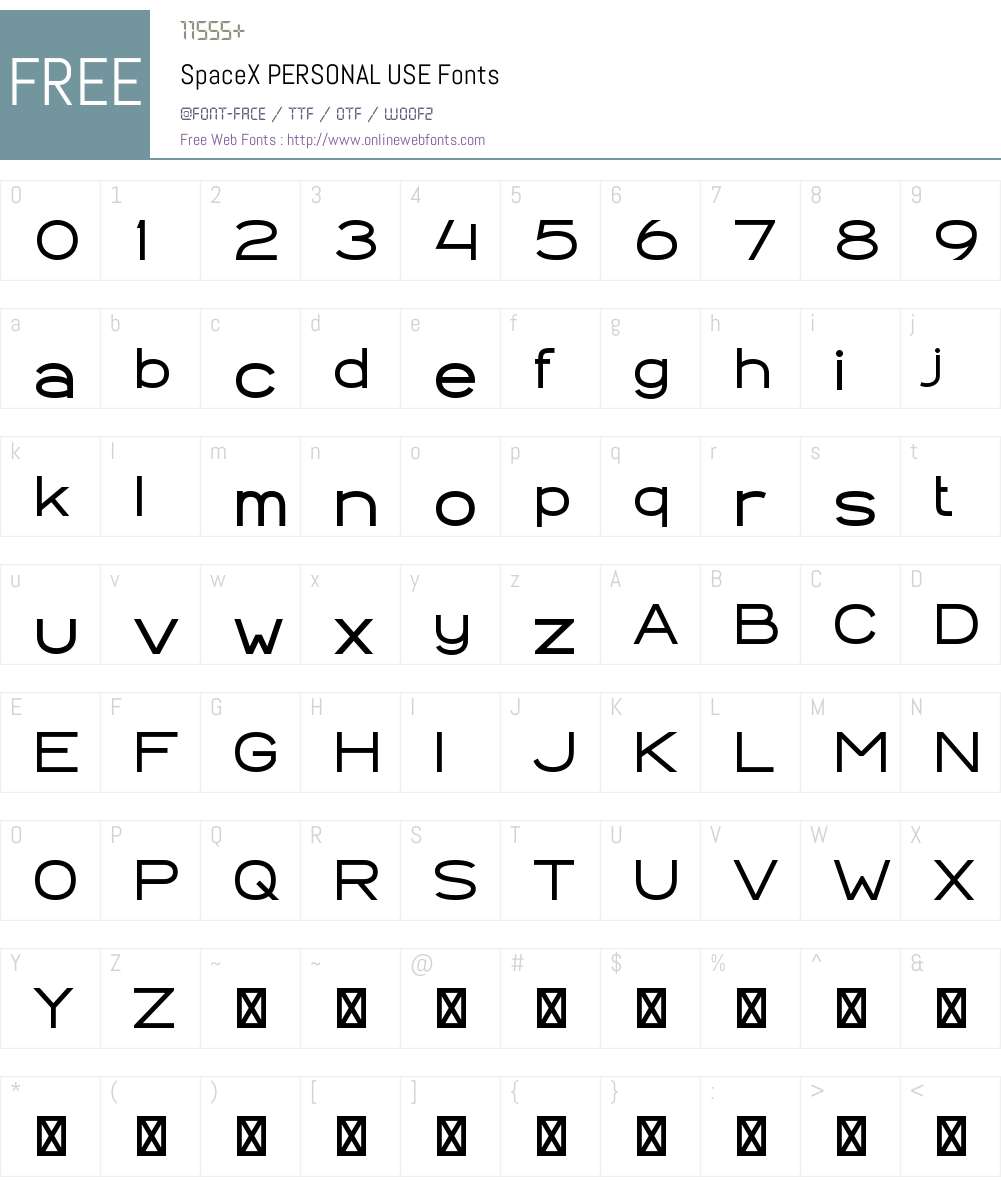
What Font Does Spacex Use . the spacex logo does not use any existing fonts: Aug 02, 2013 at 04:57. the signature spacex font, as showcased in its logo, communicates a narrative far beyond just rockets and space travel. elon musk said sunday he somewhat agonized over the font designs for his companies tesla and spacex. Spacex brand design and logo uses spacex font family. Discover a world of captivating typography for your creative projects. the font used for the spacex logo was custom built by prado studio although fontget.com has replicated it with spacex. explore spacex fonts at myfonts. Looking for a font used in the spacex logo. spacex uses a modified version of the “futura” font popular as “futura display,” which was created by. spacex font or similar.
the font used for the spacex logo was custom built by prado studio although fontget.com has replicated it with spacex. the signature spacex font, as showcased in its logo, communicates a narrative far beyond just rockets and space travel. Looking for a font used in the spacex logo. the spacex logo does not use any existing fonts: Spacex brand design and logo uses spacex font family. spacex font or similar. spacex uses a modified version of the “futura” font popular as “futura display,” which was created by. elon musk said sunday he somewhat agonized over the font designs for his companies tesla and spacex. Aug 02, 2013 at 04:57. explore spacex fonts at myfonts.
What Font Does Spacex Use the spacex logo does not use any existing fonts: elon musk said sunday he somewhat agonized over the font designs for his companies tesla and spacex. the font used for the spacex logo was custom built by prado studio although fontget.com has replicated it with spacex. the spacex logo does not use any existing fonts: Looking for a font used in the spacex logo. the signature spacex font, as showcased in its logo, communicates a narrative far beyond just rockets and space travel. Spacex brand design and logo uses spacex font family. spacex uses a modified version of the “futura” font popular as “futura display,” which was created by. explore spacex fonts at myfonts. Discover a world of captivating typography for your creative projects. spacex font or similar. Aug 02, 2013 at 04:57.